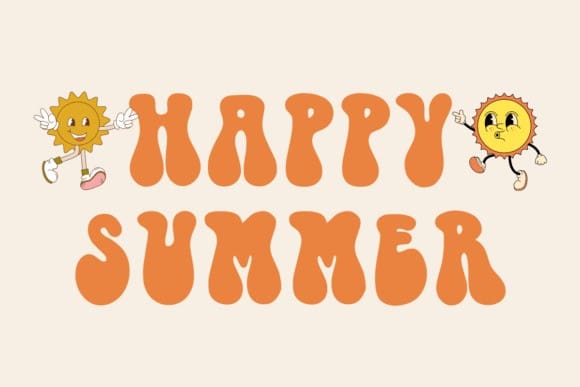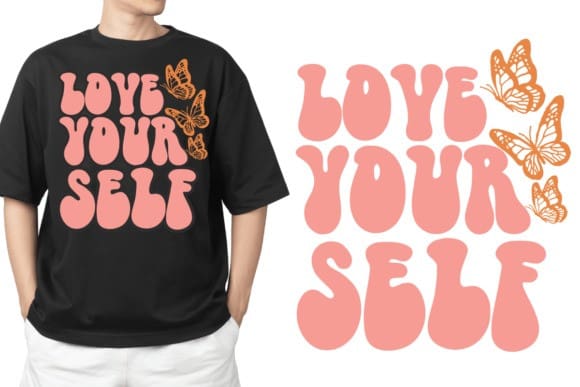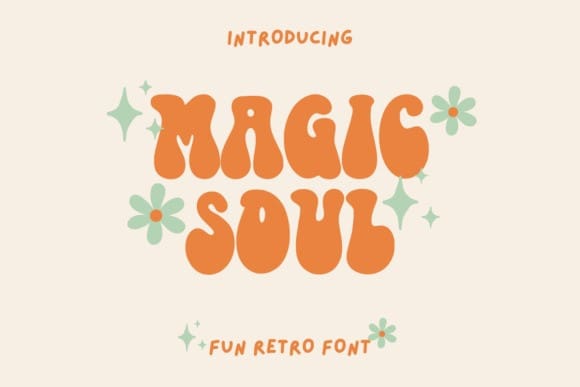
Magic Soul Font
Magic Soul Font is a fun and retro font, perfect for designs that need a playful, cheery accent. Magic Sou lis suitable for book covers, posters, packaging, merchandise, logotypes, and many more!